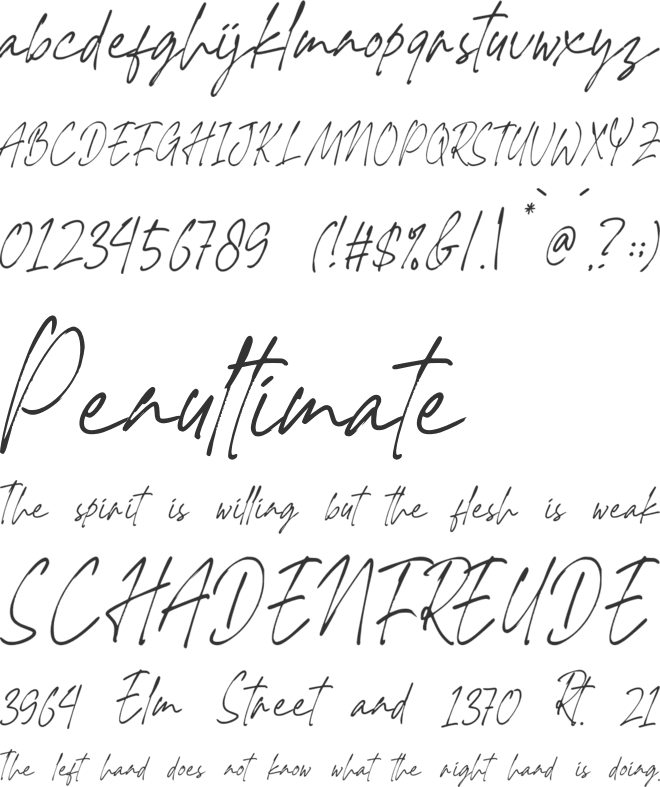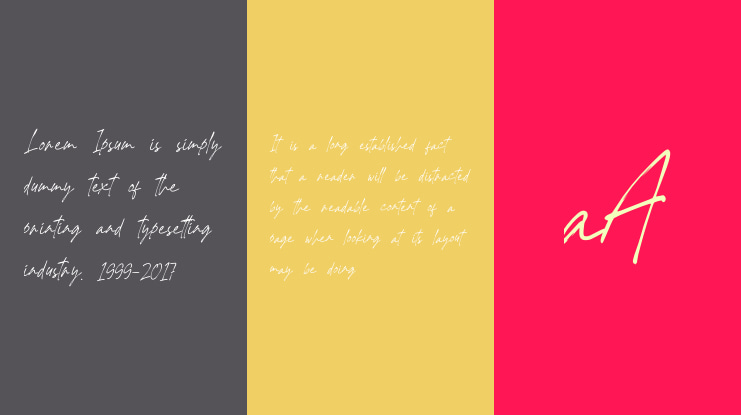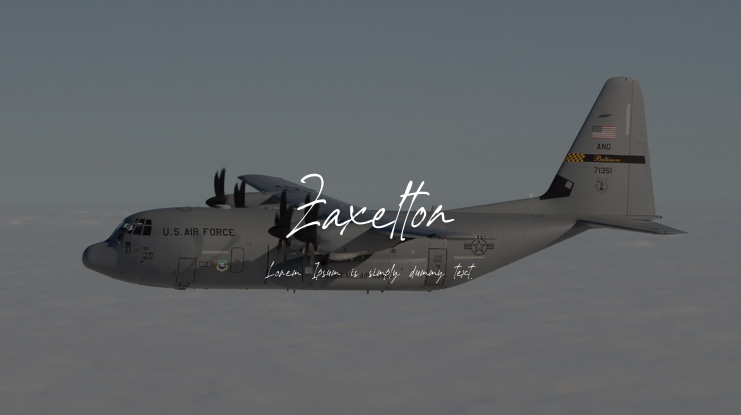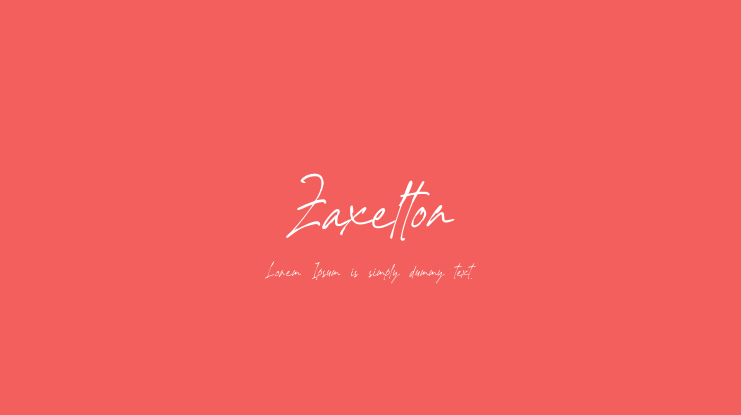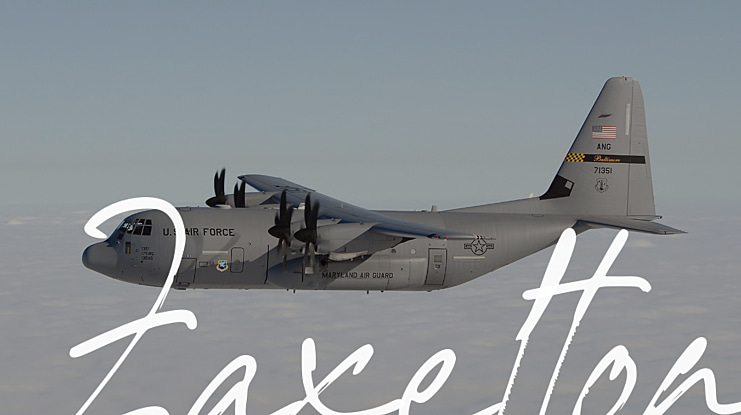
Zaxelton Font
Introducing Zaxelton, a stunning brush signature font that combines contemporary design with a welcoming touch. This font is perfect for adding a touch of life to any Do-It-Yourself project. Explore its charm here: https://www.creativefabrica.com/product/zaxelton/ref/236390/